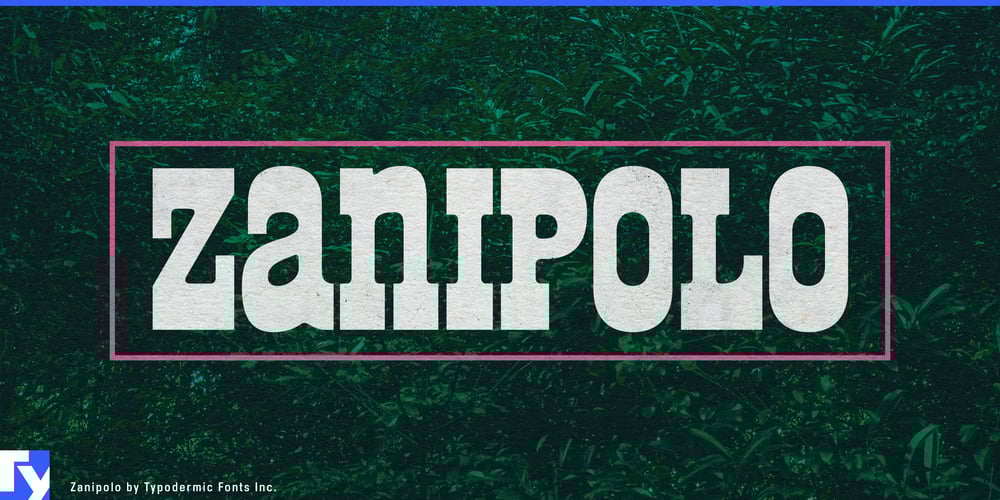
Zanipolo Font Family was designed by Ray Larabie and published by Typodermic. Zanipolo contains 1 styles and family package options. Step into the world of Zanipolo, a typeface that dances on the razor’s edge between vintage allure and contemporary sophistication. This is a time machine disguised as typography, whisking you back to the heady days of 1960s Italian design while keeping one foot firmly planted in the now.Zanipolo’s all-caps, inverse-slab serif unicase design is a rebellion against the expected. It takes the psychedelic spirit of the ’60s and filters it through a lens of Milanese haute couture. The result? A typeface that’s as at home on a Vespa’s sleek curves as it is gracing the pages of Vogue. With its clean lines and austere geometry, Zanipolo defies the circus-tent associations of typical inverse slab serifs. Instead, it exudes an effortless sprezzatura—that uniquely Italian blend of studied carelessness and impeccable style. The soft inner corners whisper of comfort, while sharp outer edges command attention, creating a visual rhythm that’s both soothing and electrifying.Zanipolo doesn’t just sit on the page—it struts. Its compact, tightly spaced letterforms make bold statements in headlines and logos, turning every word into a runway model. And like any true fashionista, it begs to be dressed up. Experiment with vibrant color palettes, and watch as Zanipolo transforms from classic black-tie elegance to the life of the party. But this typeface isn’t just a pretty face. Zanipolo is a polyglot, fluent in a vast array of Latin-based European languages. From the bustling streets of Berlin to the sun-drenched piazzas of Rome, Zanipolo ensures your message maintains its chic, cosmopolitan edge across borders and cultures.Choose Zanipolo for your next project, and watch as it infuses your designs with a dose of la dolce vita. Whether you’re crafting a campaign for a cutting-edge fashion house, branding a retro-inspired café, or simply adding some flair to your sexy shirt, Zanipolo is the secret ingredient that will have everyone asking, “What’s your type?”